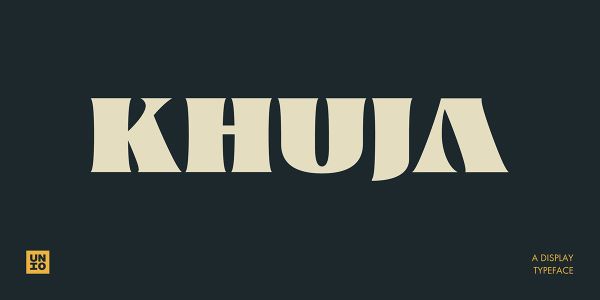
Khuja Font Khuja by Unio Designs is a free display serif font that fuses organic flowing curves with bold geometric forms — a duality that gives it both the raw power of nature and the precision of considered type design. Its 398-glyph character set provides genuinely broad language support, while the variable TTF and static OTF formats offer flexible deployment across print and digital applications including branding, editorial, web design, broadcasting, packaging, and apparel. Every…
Steppe Font Steppe by Igor Stepanchenko is a static geometric sans-serif font with a wide, open nature that manages to be both structurally strict and visually warm at the same time. Its clean, measured letterforms hold up beautifully at small sizes where legibility is critical, yet retain a friendly, approachable character when scaled up for display use. Designed with versatility as a core principle, Steppe is the kind of typeface that slots naturally into editorial…
SAMBIA Font SAMBIA by Sergey Mikheev is a geometric font that channels the concentrated energy of Bauhaus design into a monoweight, extra-condensed display family. Its letterforms are built on clean geometric principles — sharp corners, closed apertures, minimal variation in stroke weight — and carry that first-half-of-the-twentieth-century sense of disciplined economy and functional elegance. Available in Regular and Bold, SAMBIA covers uppercase and lowercase letters, numerals, punctuation, symbols, and multilingual support across Latin, Latin Extended,…